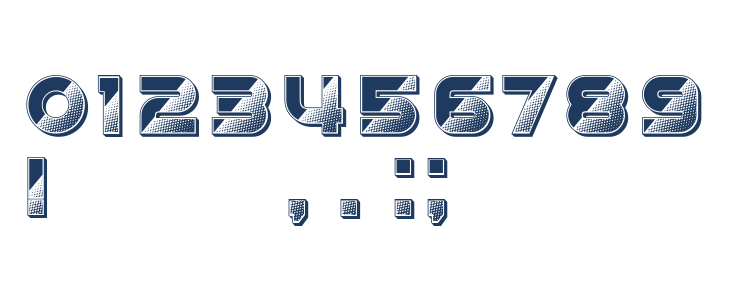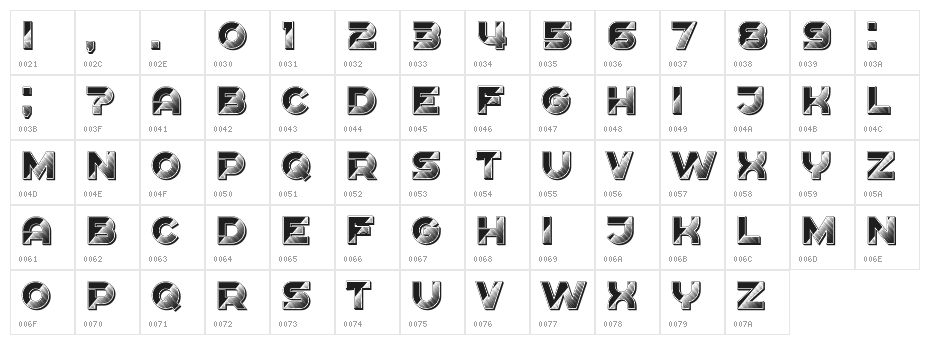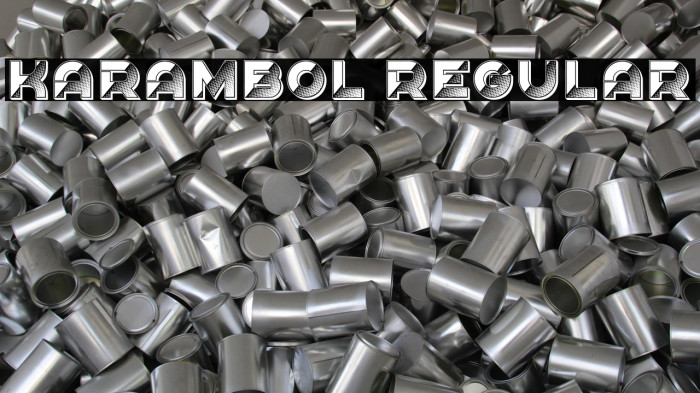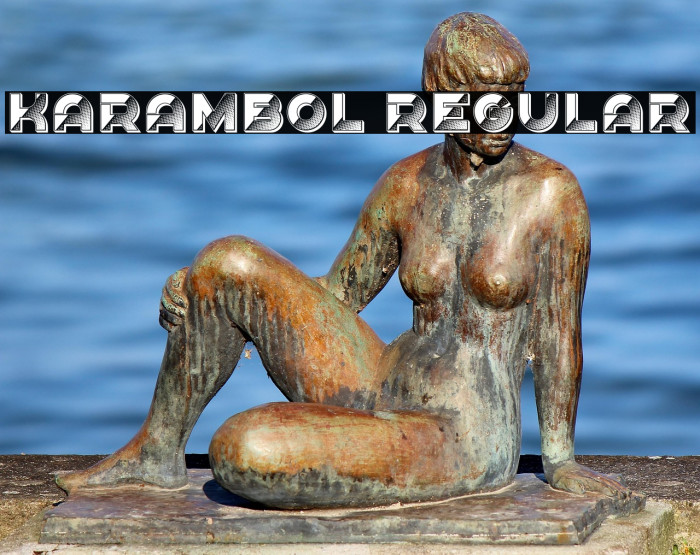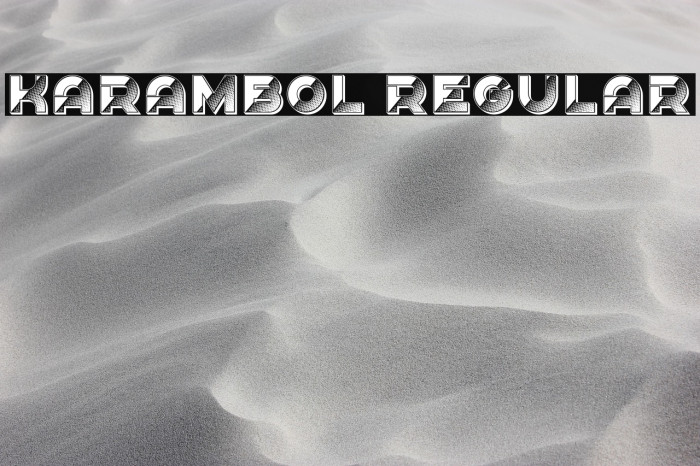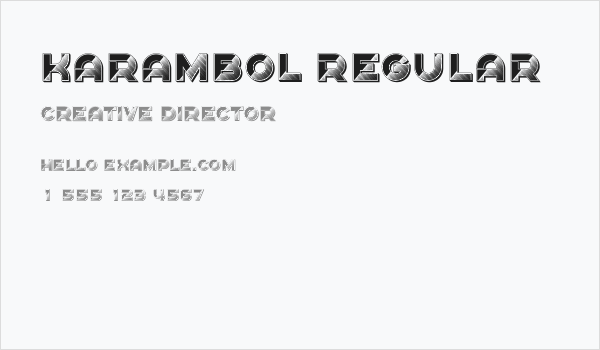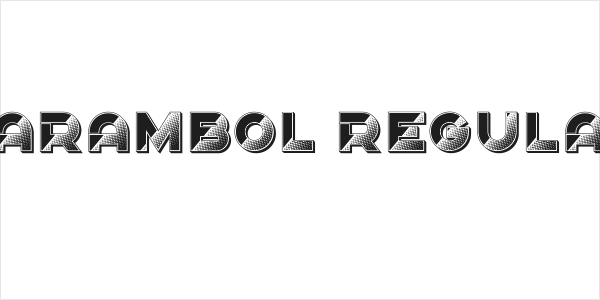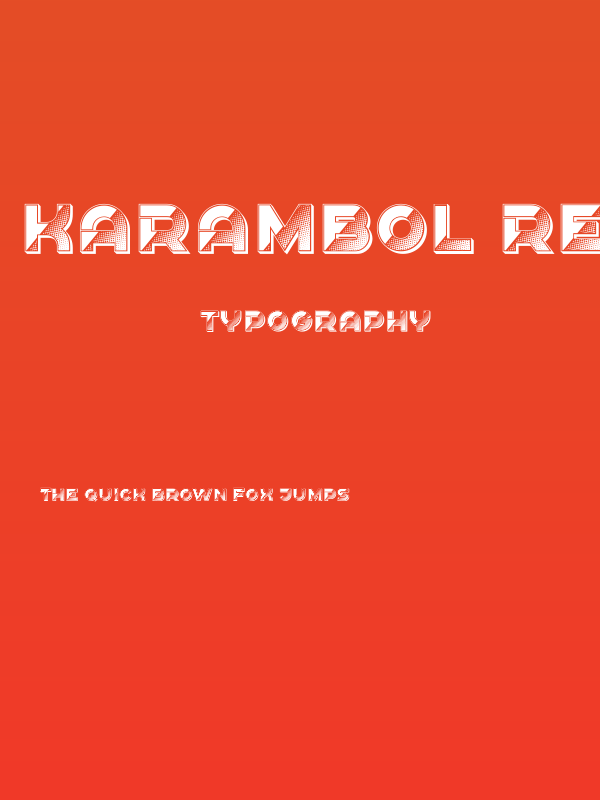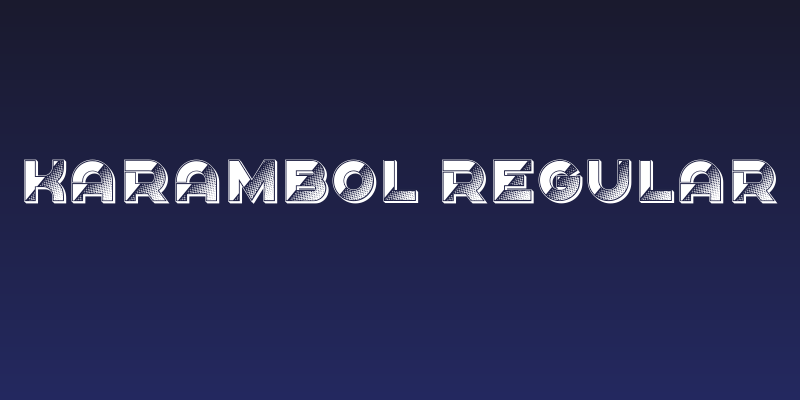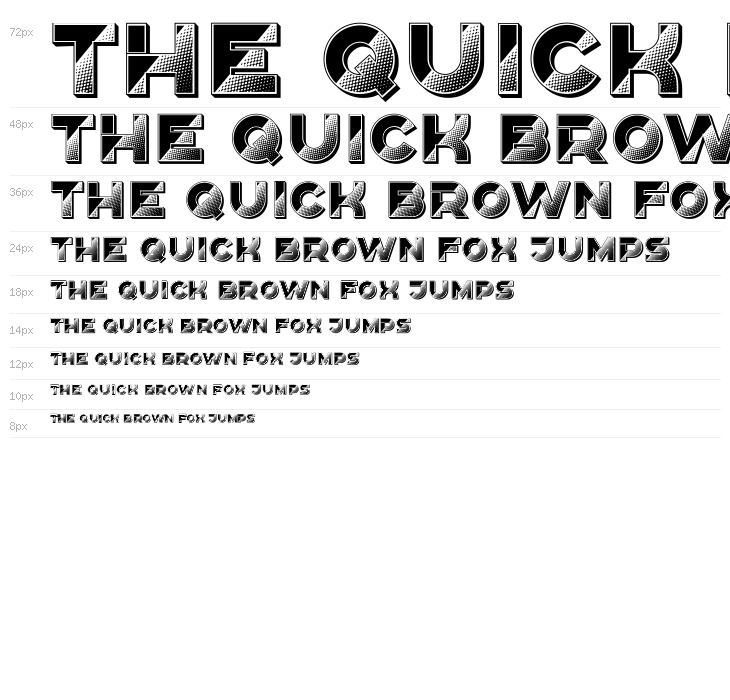
Karambol Regular Font
Karambol Regular Description
This font features a bold, decorative style with a unique 3D effect that combines solid and dotted textures. The characters have a strong presence, with a shadowed outline that adds depth and dimension. The uppercase and lowercase letters maintain a consistent style, making it suitable for eye-catching designs. The numerals and special characters follow the same aesthetic, ensuring uniformity across all text elements. Its distinct appearance makes it ideal for projects that require a standout visual impact.
| Proposed Projects | Ideal for posters, logos, headlines, and any design that requires a bold, eye-catching font. |